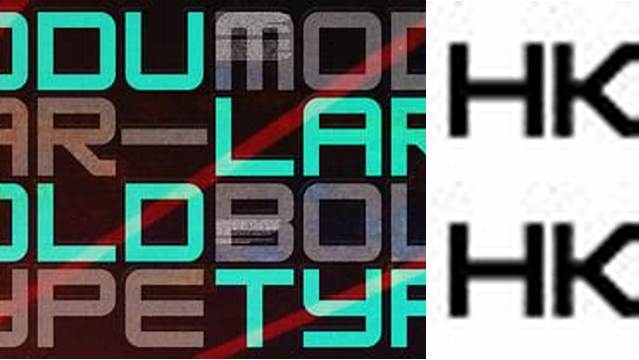
Hey everyone! Are you on the hunt for a sleek, modern typeface that's both versatile and free? Look no further, because we're diving headfirst into the world of the HK Modular Font, and specifically, how to get your hands on a free TTF download. This font is a fantastic choice for various design projects, from website headers to print materials, and its clean lines and geometric style will give your work a contemporary edge. This guide will walk you through everything you need to know, ensuring you can easily download and install the font to start using it in your projects right away. We'll explore where to find the legitimate free downloads, how to install the font on your computer, and even some creative ways you can use it. Get ready to boost your design game with this awesome free font! The HK Modular Font is more than just letters; it's a statement. Its modular design lends itself to both functionality and visual appeal, ensuring that your message is not only readable but also eye-catching. Let's jump into the details and get you started on your font journey! Remember, using a font legally is super important, so we'll be sure to point you toward trusted sources for your free download.